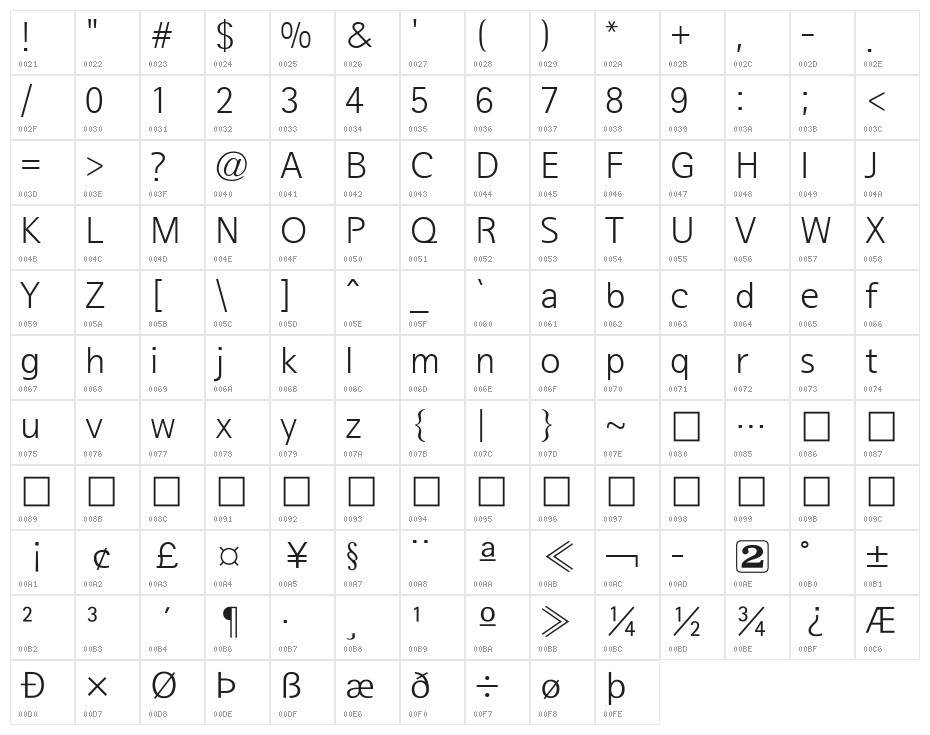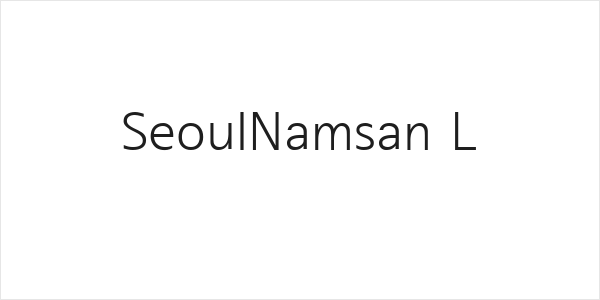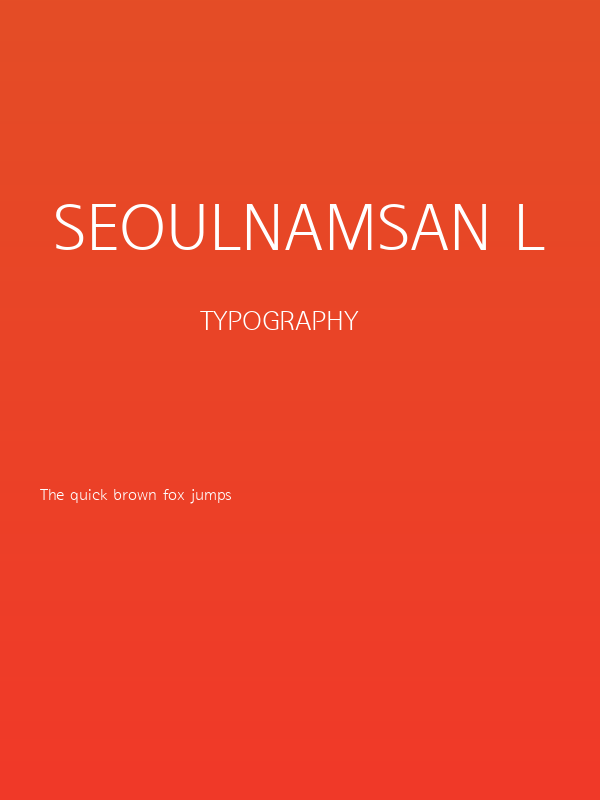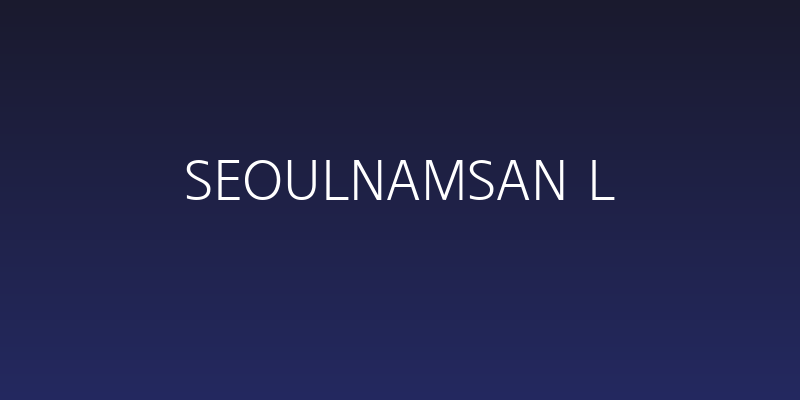
SeoulNamsan L Font
SeoulNamsan L Description
This font exhibits a clean and modern sans-serif style, characterized by its simplicity and readability. The letters are evenly spaced with a consistent stroke width, providing a balanced and harmonious appearance. The uppercase letters are bold and assertive, while the lowercase letters maintain a friendly and approachable look. The numerals are clear and distinct, making them easy to read. Special characters are well-designed, fitting seamlessly with the overall aesthetic. This font is versatile, suitable for both digital and print media, and can be used effectively in various design contexts.
| Proposed Projects | Ideal for branding, web design, advertising, and editorial projects. |